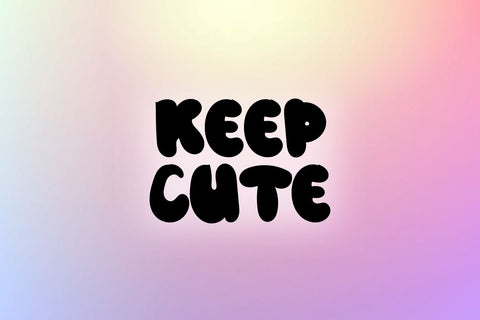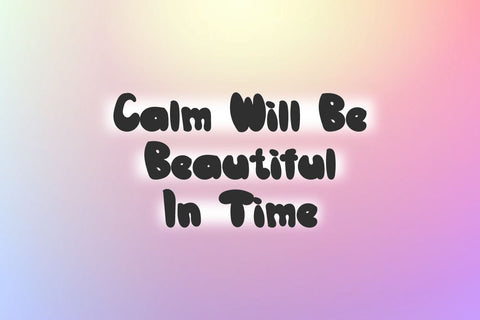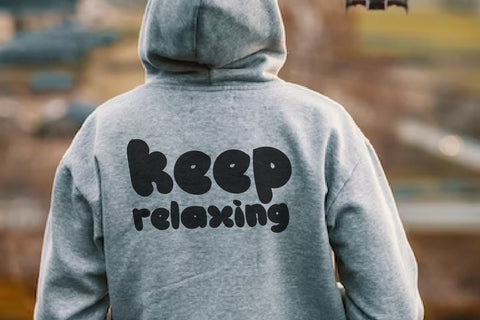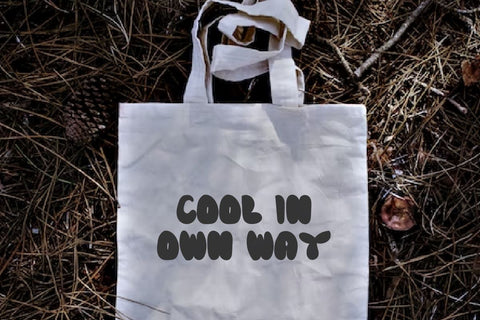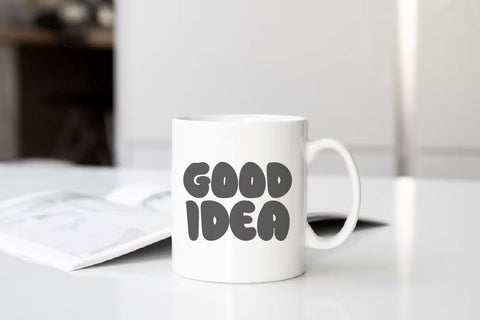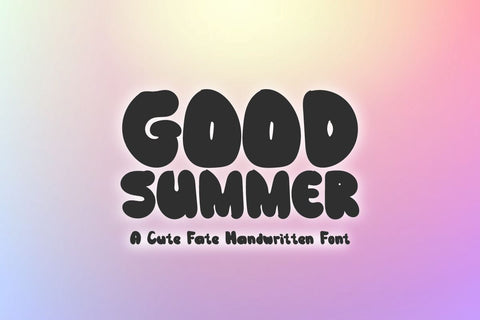
Good Summer | A Cute Fat Handwritten Font
Good Summer is a bubbly handwritten font.. and a little bit groovy too!
This font is perfect for creating retro shirt designs, stickers, phone cases, instagram quotes, cricut projects, procreate, logos and more!